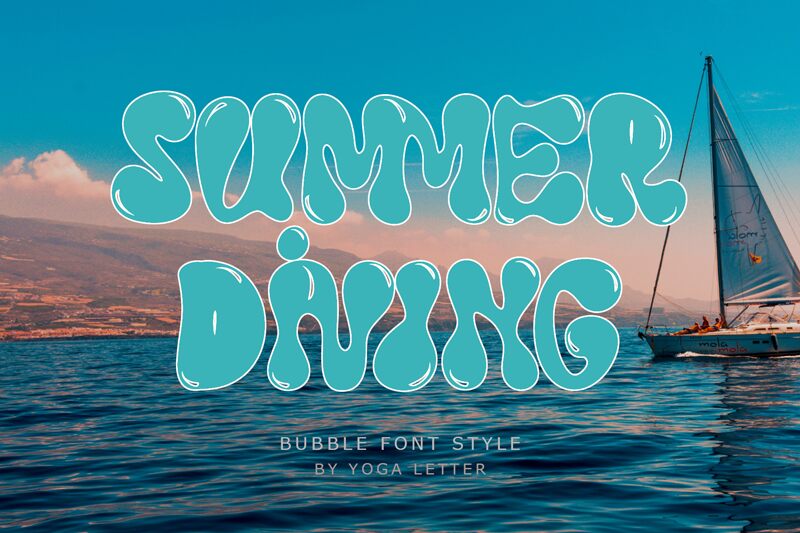
Summer Diving font by Yoga Letter is a free font with a groovy style. The relaxed and fun letters feature visible transitions that are reminiscent of the ’60s and ’70s. This font is not here to create controversy; it intends to bring together the audience with a pleasant feeling of warmth and happiness. It evokes nostalgia suitable for leisure themes and summer-inspired branding.
Use it for magazine designs, covers, album covers, posters, ads, or website designs. The font is also useful for personal branding and identity design, packaging, pattern design, signage, and various other printed and digital projects.